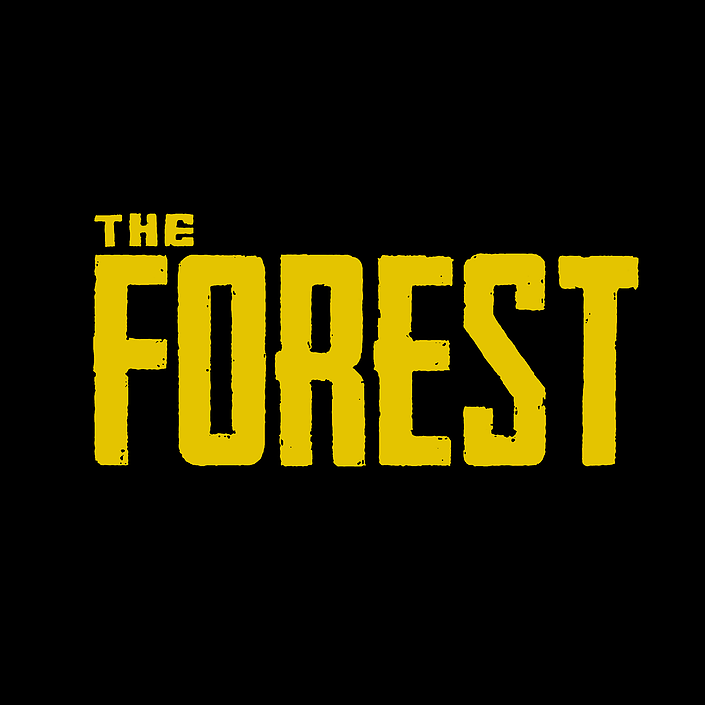
The Forest (video game) Font
Fonts in UseThe Forest is a survival video game developed by Endnight Games. It features an open-world environment where players must navigate a forest and survive against hostile creatures while searching for their missing son.
Headliner No. 45 by KC Fonts, with a slight modification on the left side of the F bar, is used in the logo of "The Forest." The tiny word "THE" appears to be an extended version of Calame, a font designed by Martin Calame. Both fonts are available for free download here at FontGet.